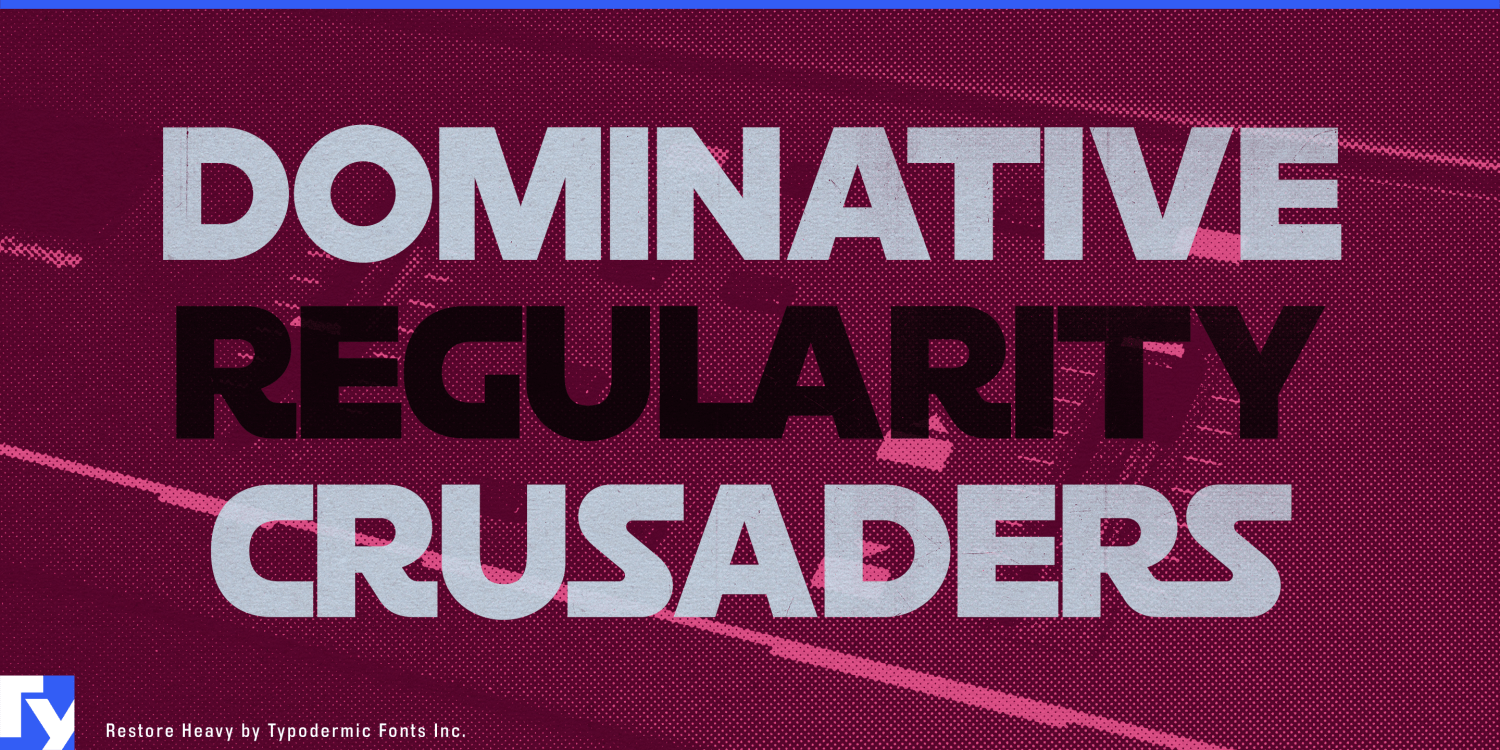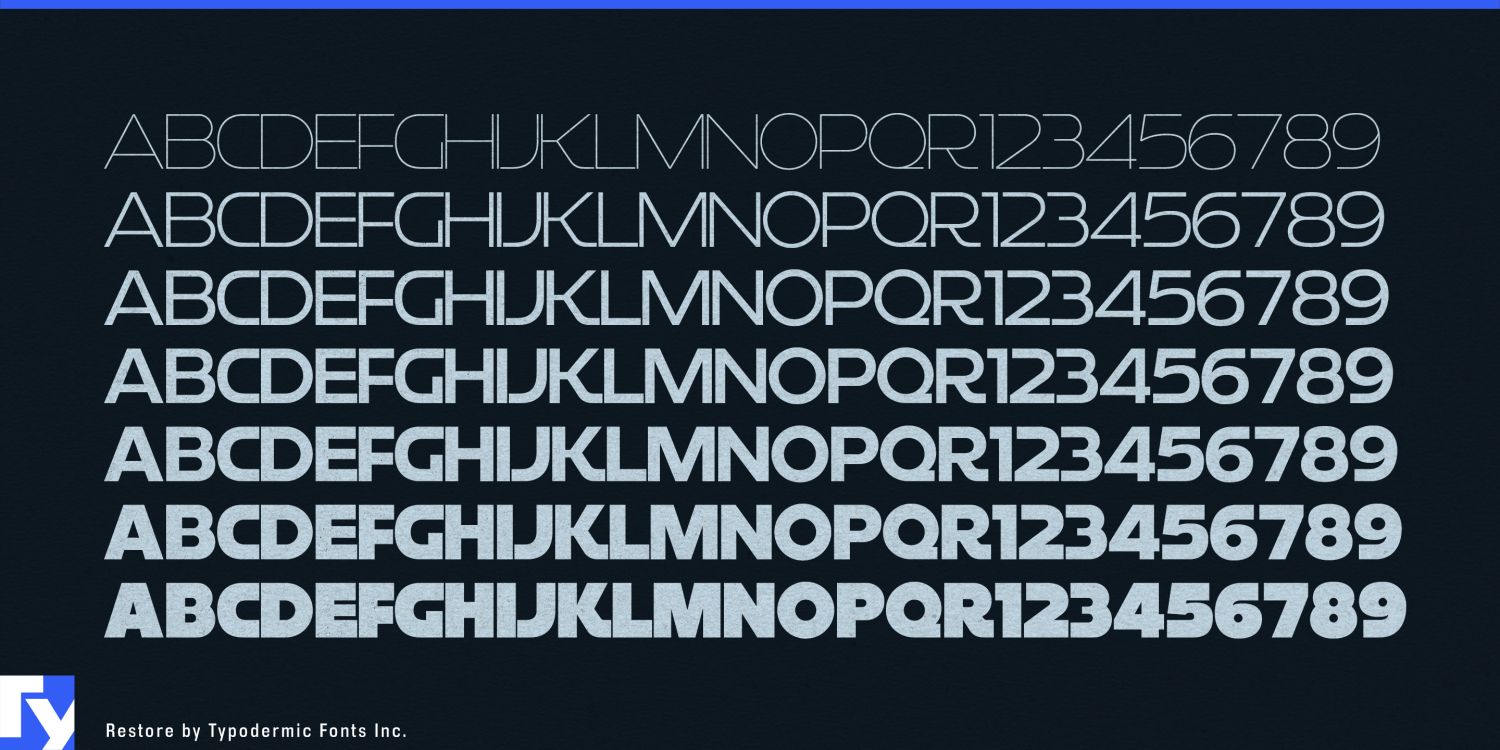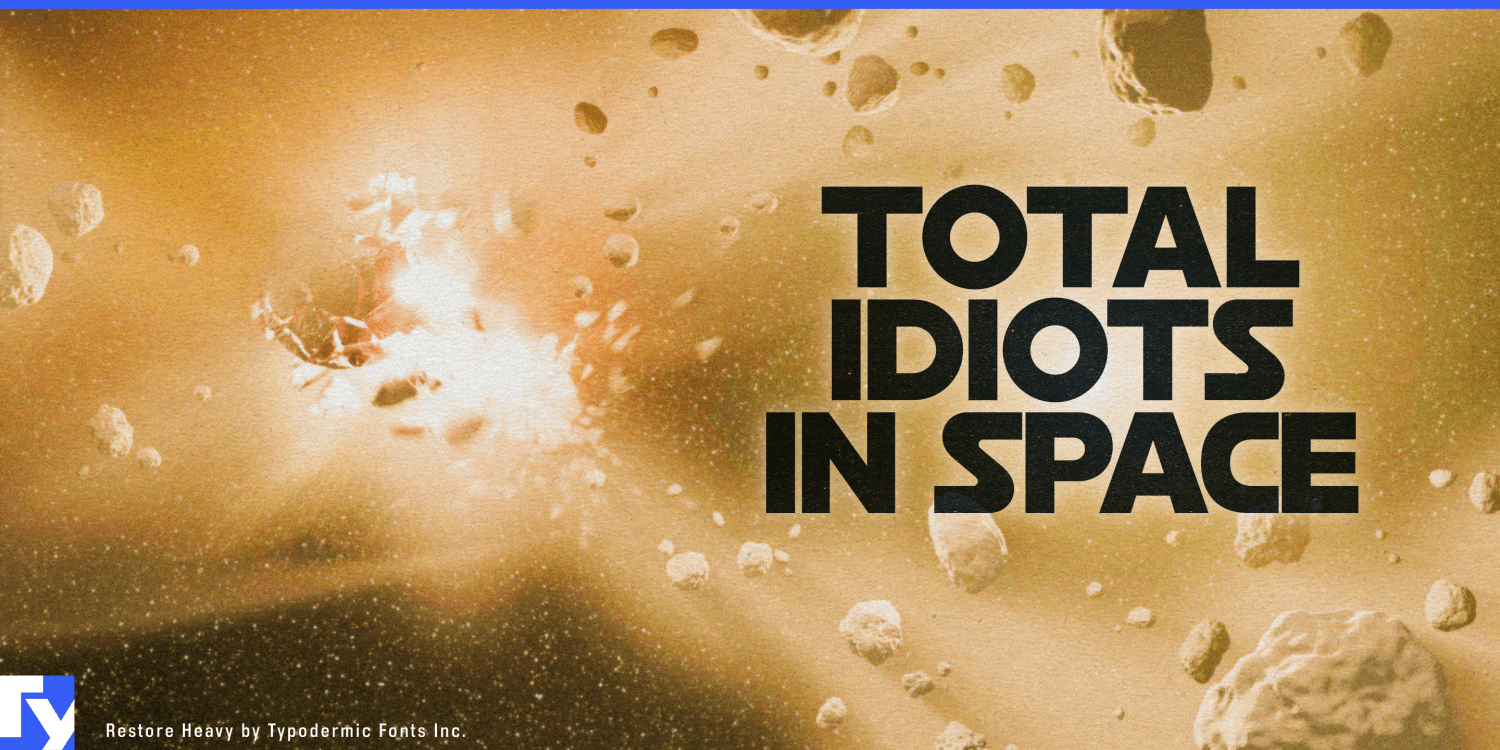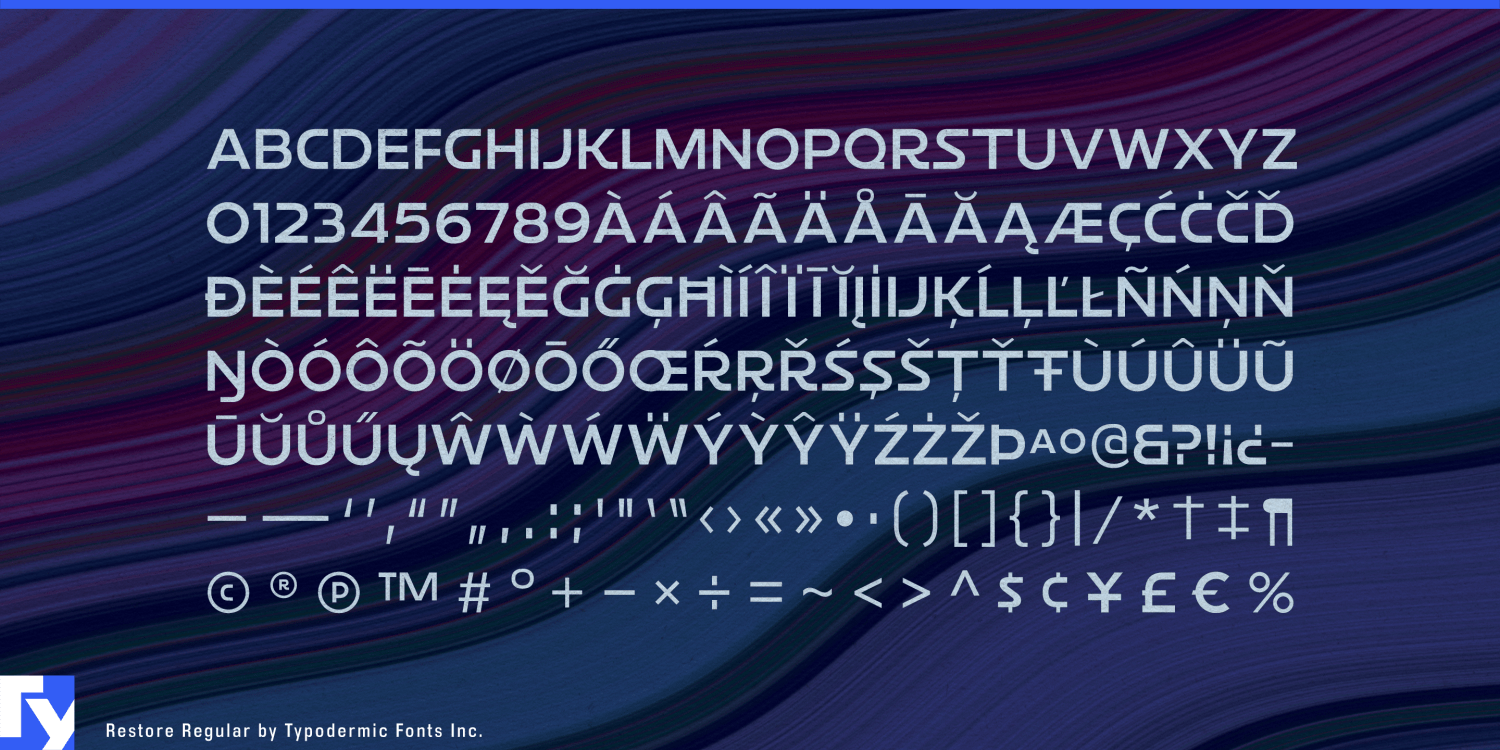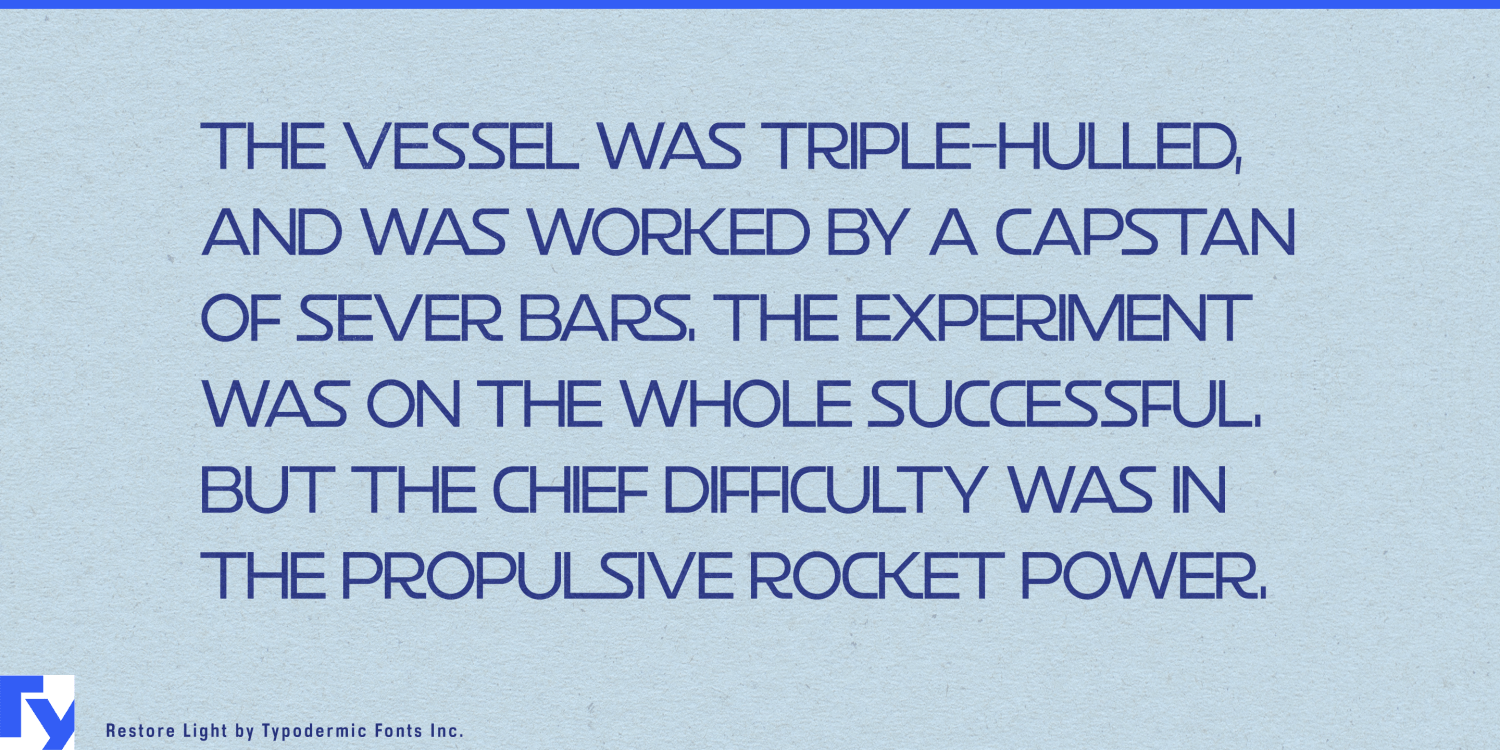
Step into the world of Restore, a headline typeface that masterfully bridges early 20th-century German sign lettering with contemporary design sensibilities. At first glance, its geometric structure suggests simplicity, but a closer look reveals a nuanced…